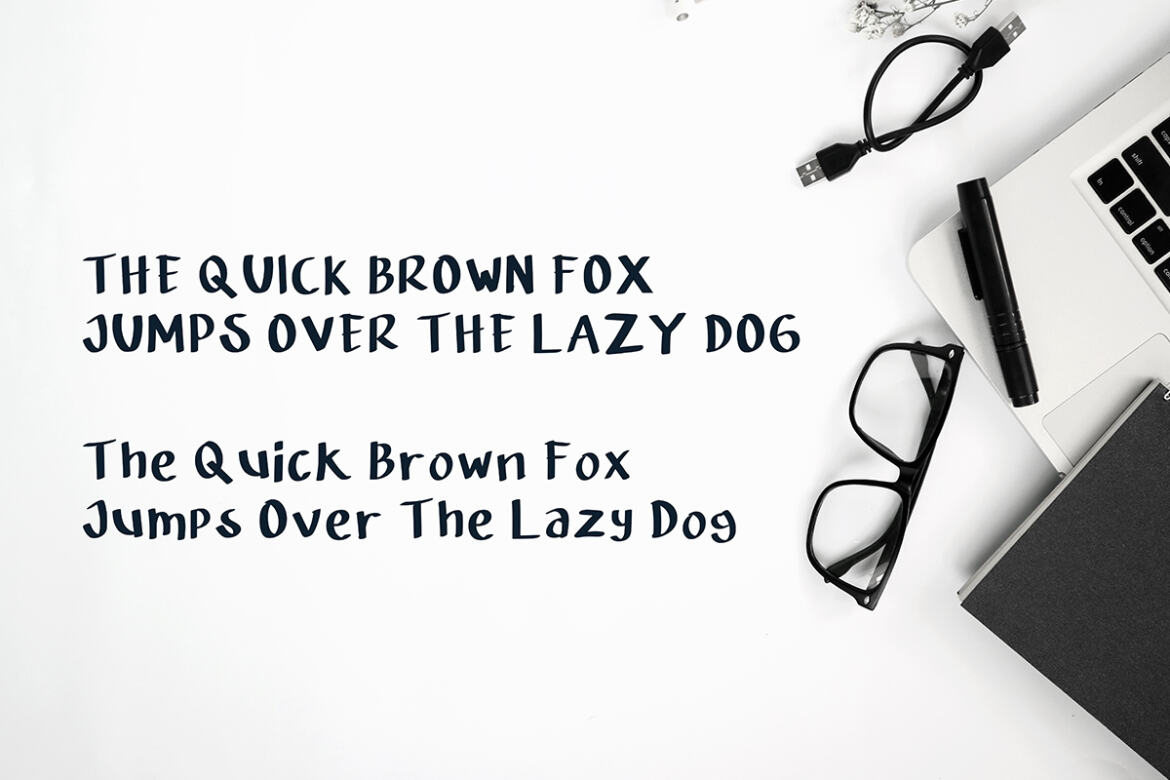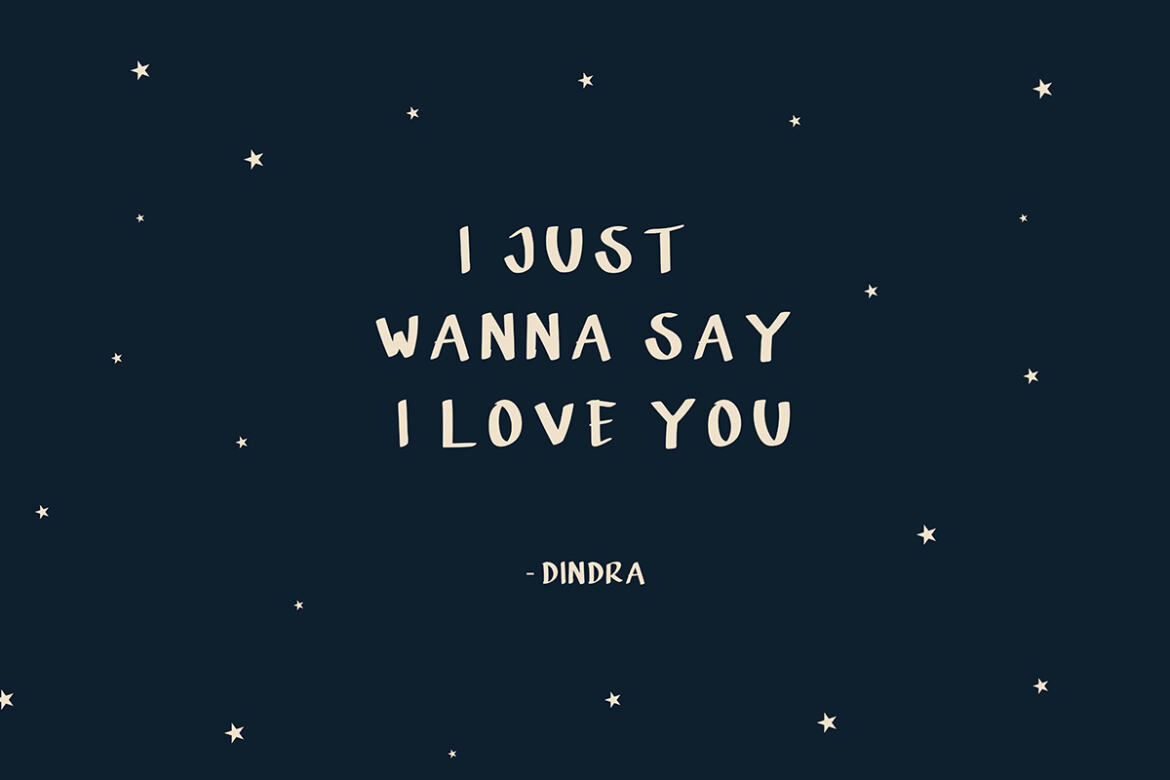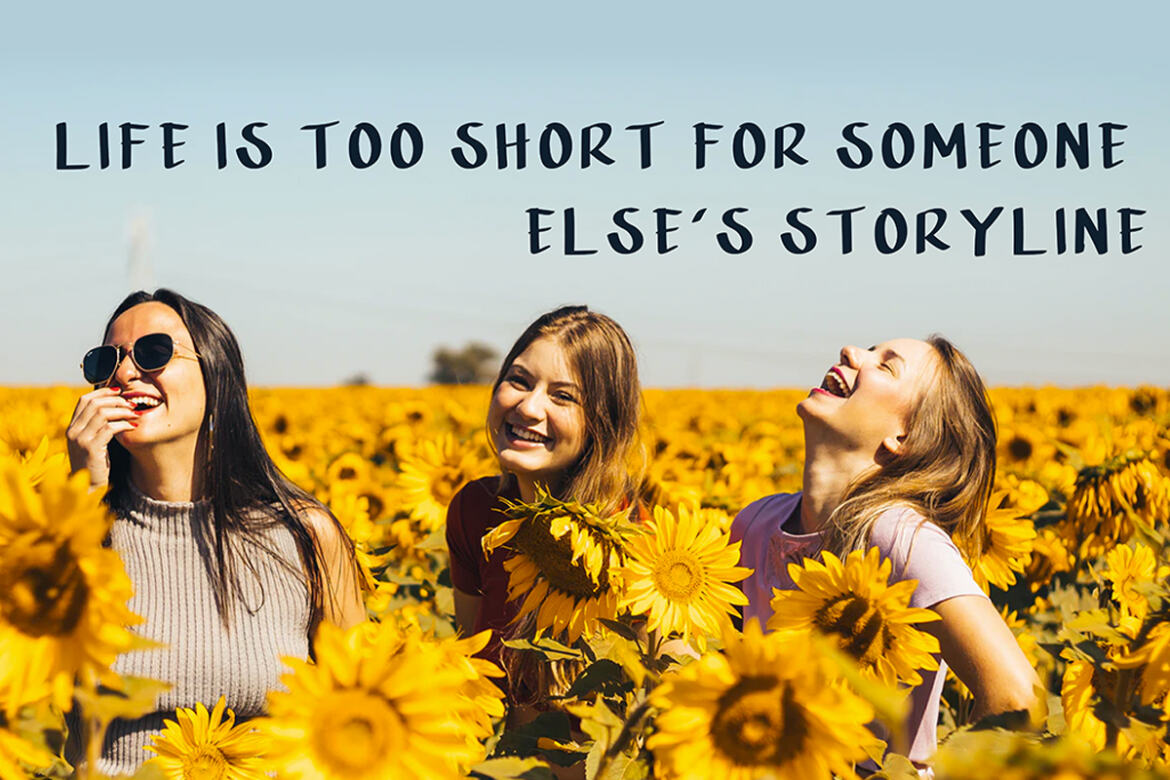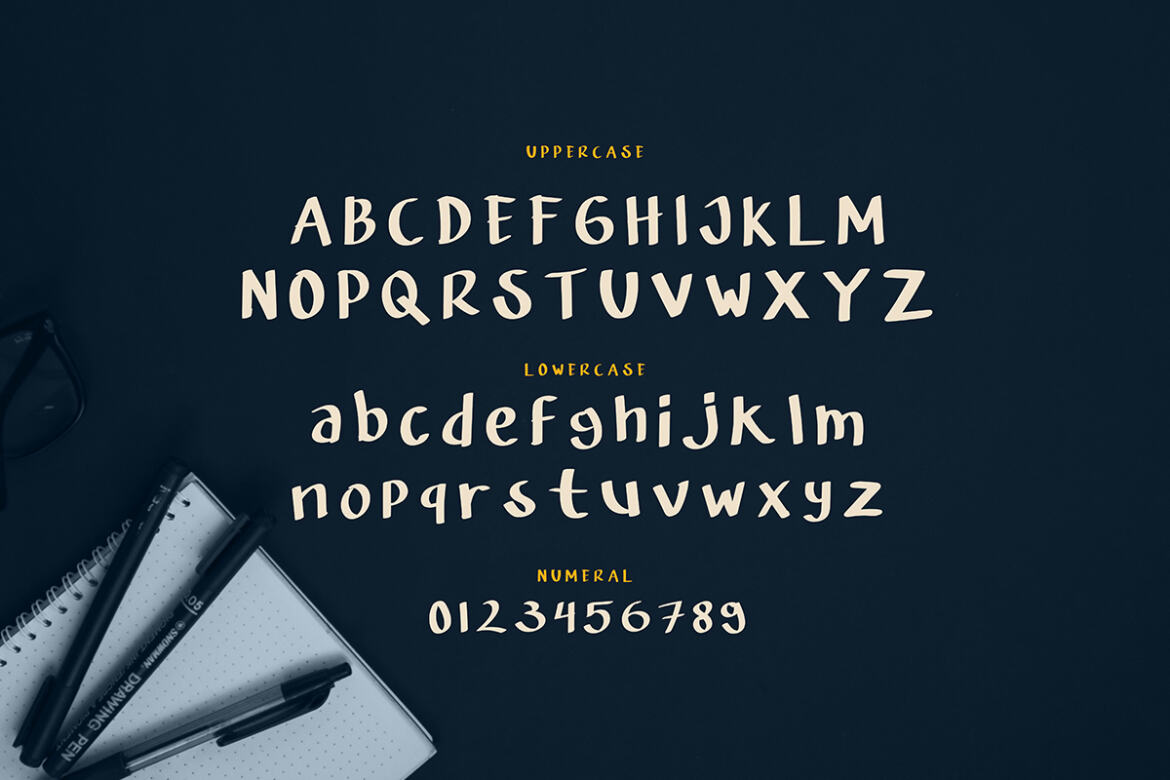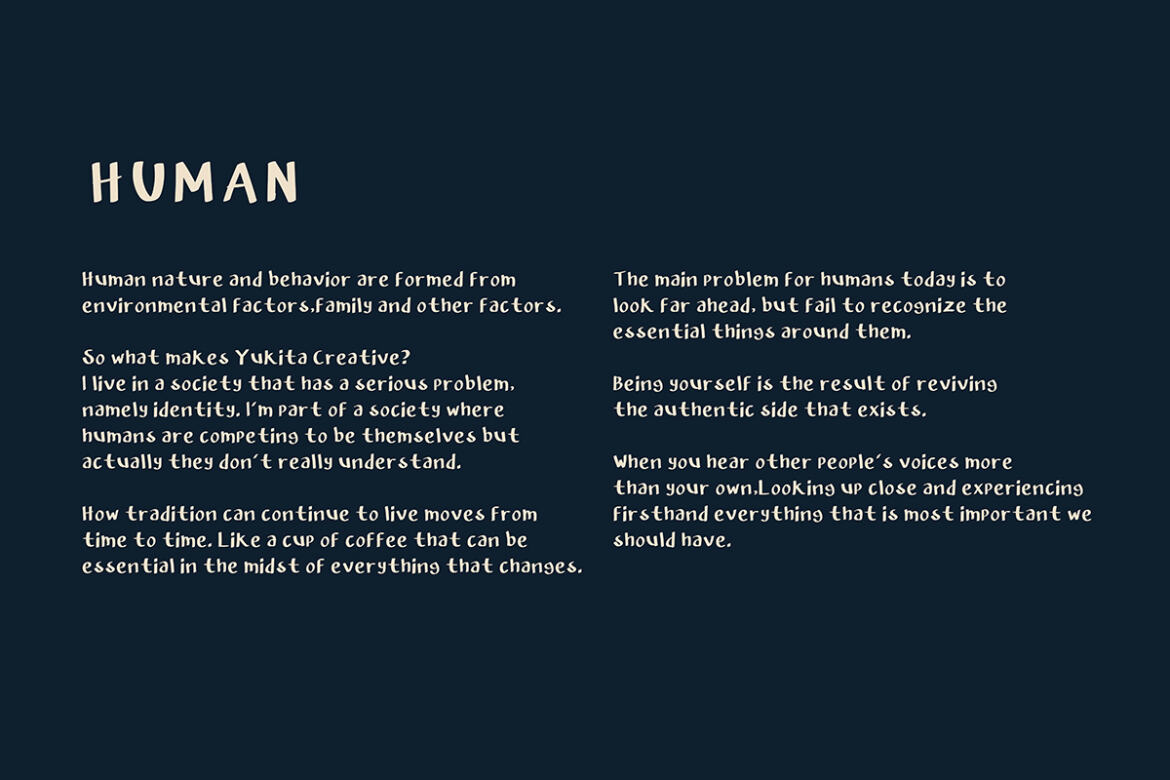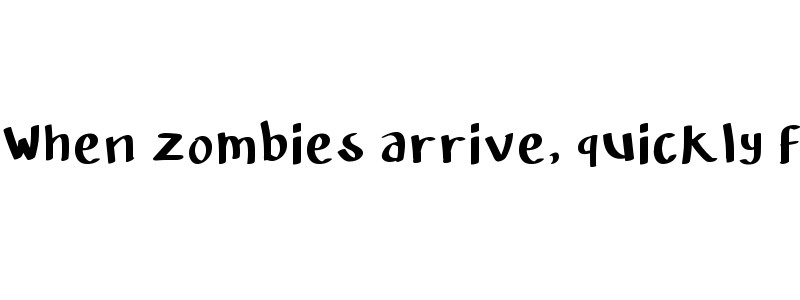
DINDRA REGULAR - Free Font
INTRODUCING Dindra Display Typeface is a font with an irregular writing style. Hairlines in all fonts are very thin.
UTILITY Dindra will be perfect for a variety of purposes, such as Posters, Fashion Magazines, Logos, Branding, Photography, Wedding Invitations, Quotes, Blog Headers, Posters, advertisements and more that require a handcrafted look.